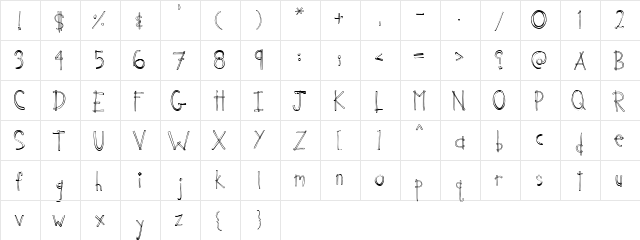
2Peas Bamboo Regular
Design Context for 2Peas Bamboo Typeface
2Peas Bamboo takes a measured approach to typography — its balanced proportions and neutral character make it a reliable workhorse for both digital and print work.